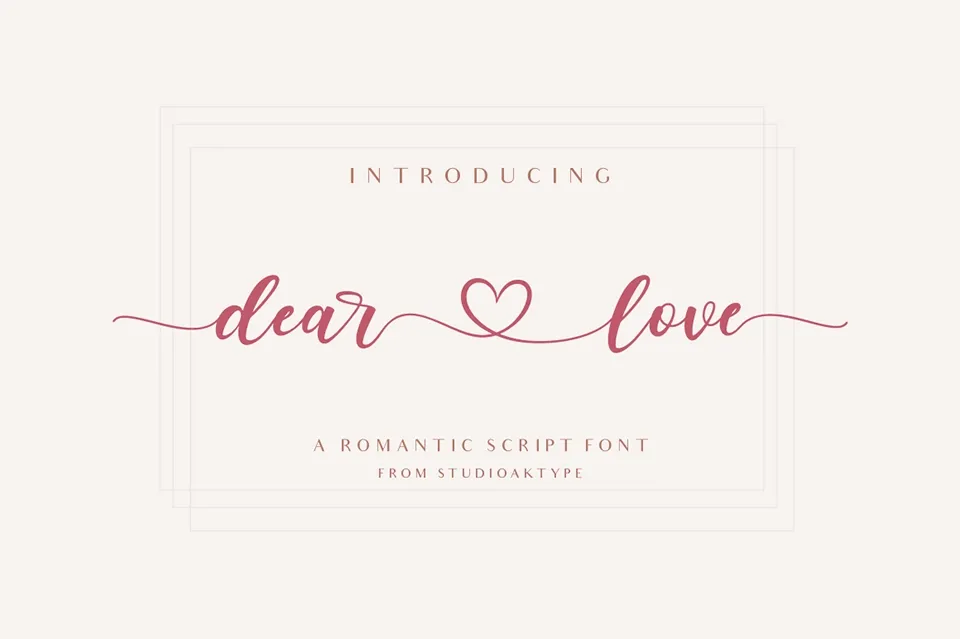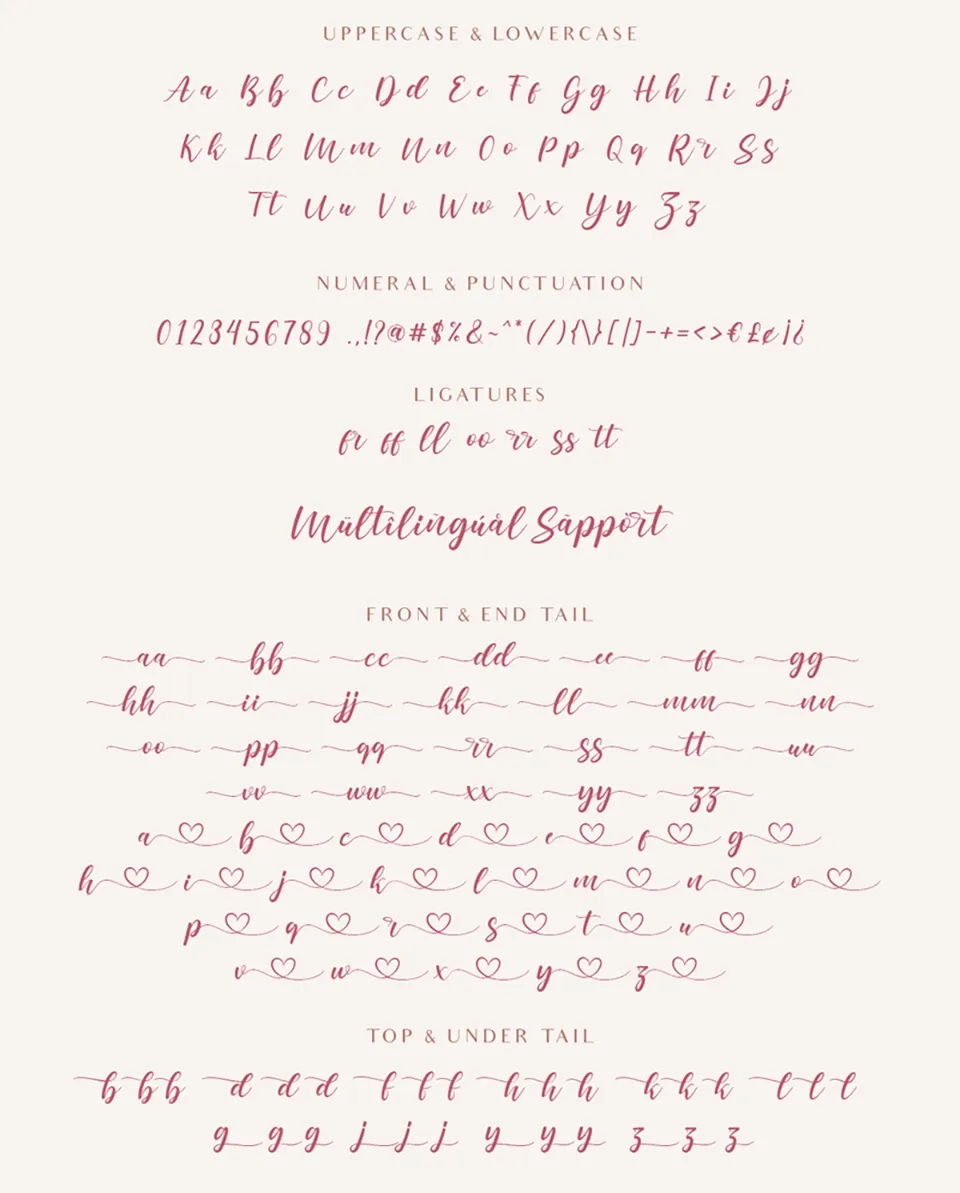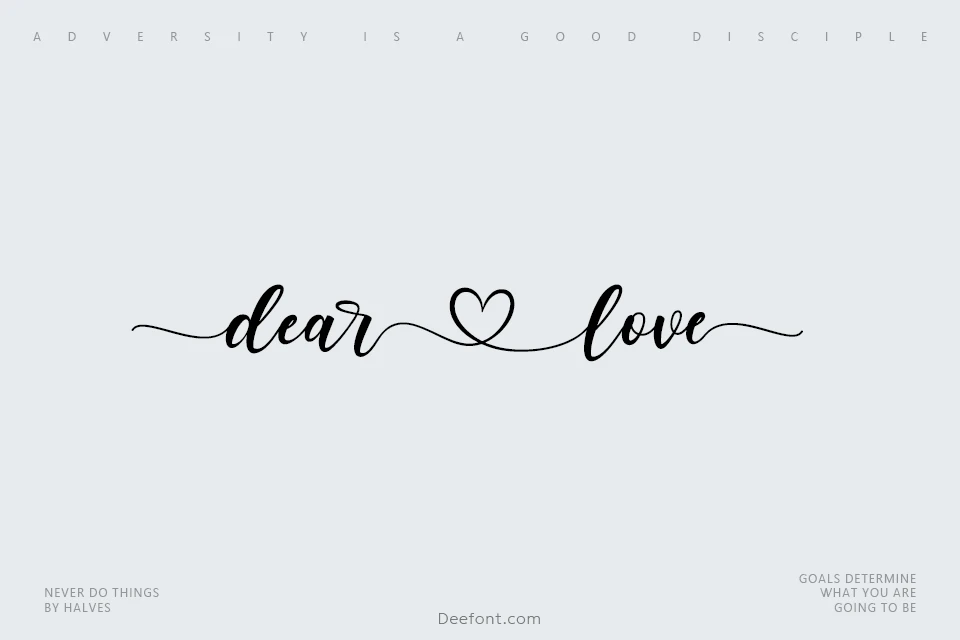
Dear Love Font
Dear Love Font is a beautiful handwritten script font that radiates elegance and romance. This font features delicate strokes with intriguing tails at the beginning and end. Its most distinctive element is the charming heart-shaped connector that links letters, adding an attractive and loving touch to your text. Perfect for wedding invitations, romantic branding, greeting cards, and any design project needing a touch of heartfelt sophistication. Dear Love’s delicate style is designed to inspire and captivate, making your words look truly special and full of affection.